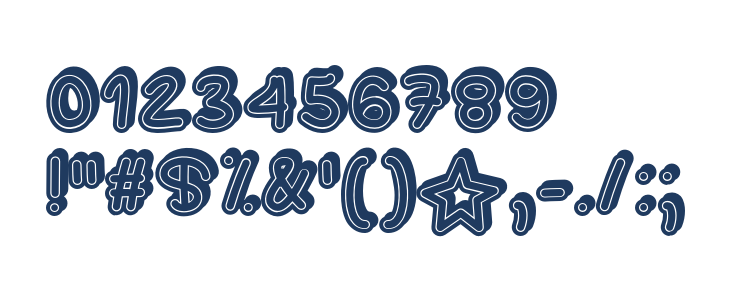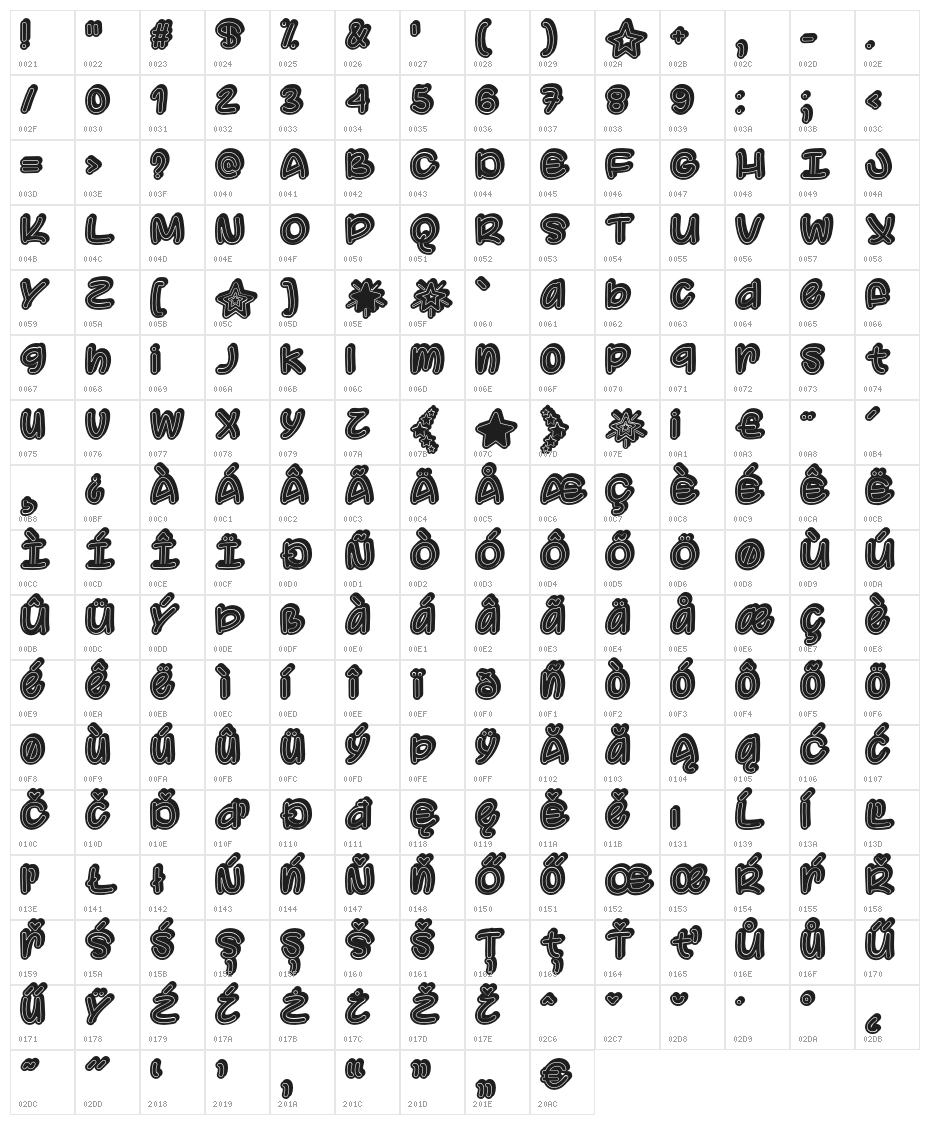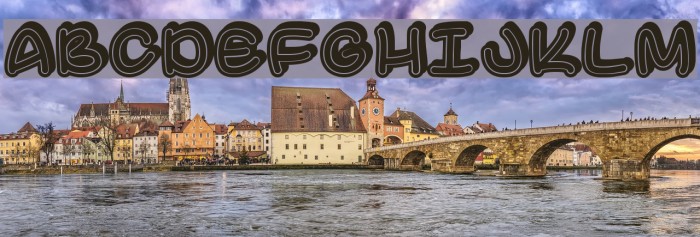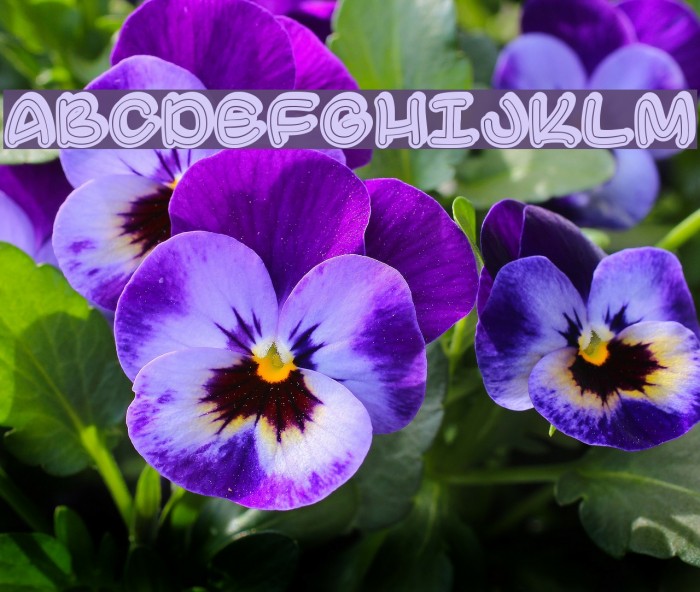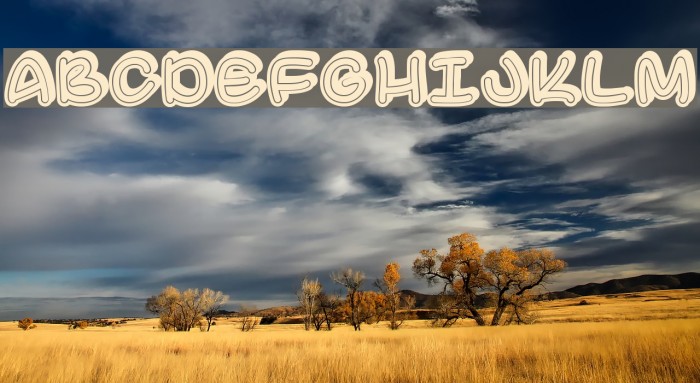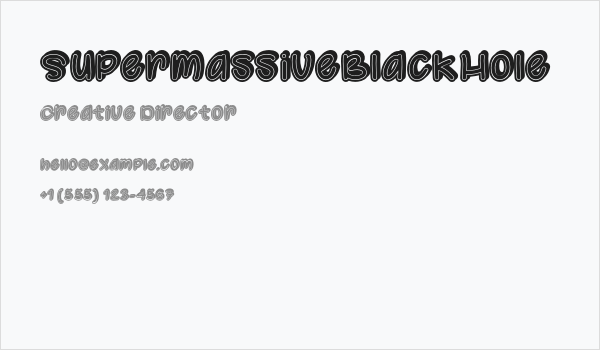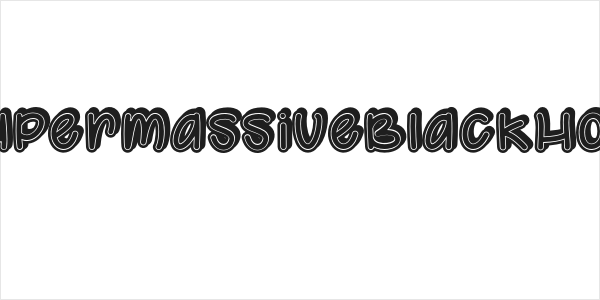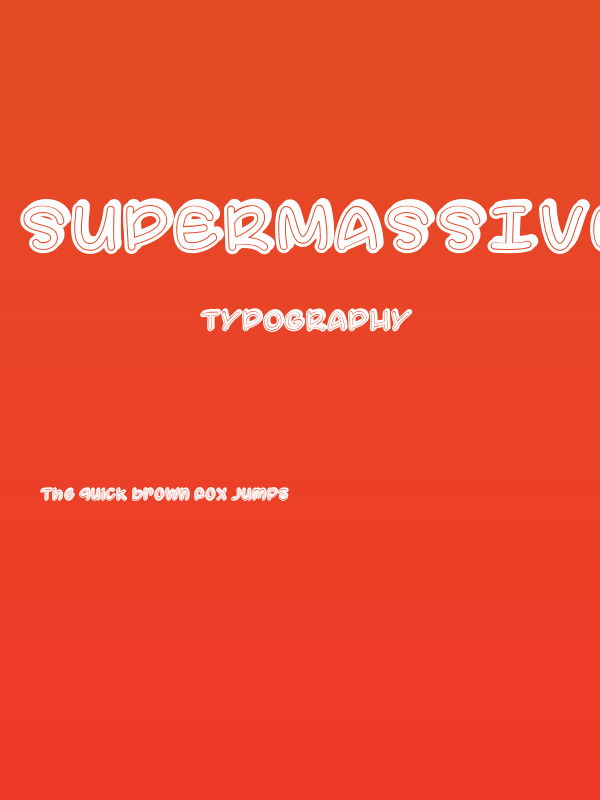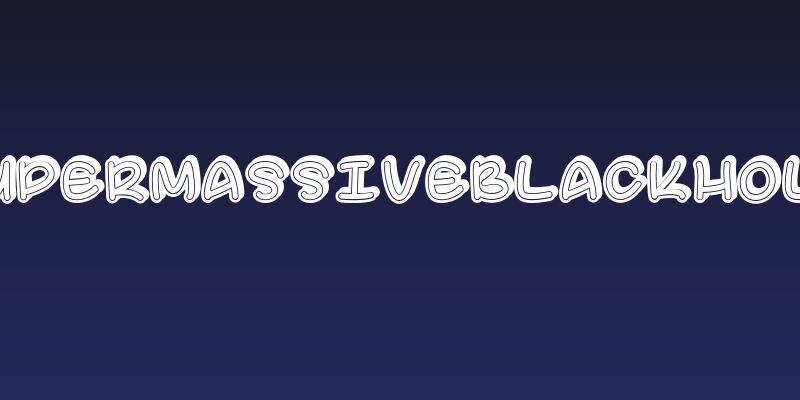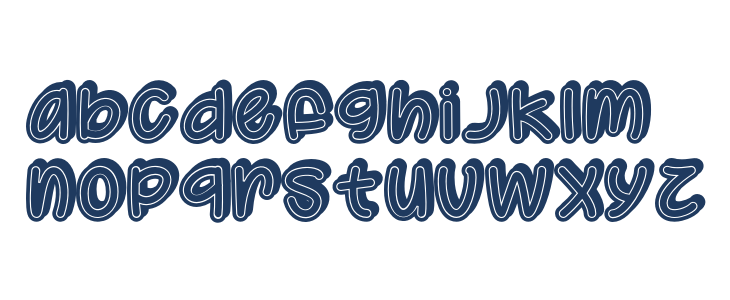
SupermassiveBlackHole Font
SupermassiveBlackHole Description
This font features a bold, playful style with a thick outline that gives it a three-dimensional appearance. The letters are rounded and have a bubbly, cartoonish quality, making them stand out with a fun and energetic vibe. The uppercase and lowercase letters maintain a consistent style, with the lowercase mirroring the playful curves of the uppercase. Numbers and special characters are designed to match the whimsical nature of the alphabet, ensuring a cohesive look across all text. The font's boldness and unique outline make it ideal for projects that require a strong visual impact.
Overall StylePlayful, Cartoonish
Proposed ProjectsIdeal for children's books, comic strips, playful branding, and eye-catching posters.